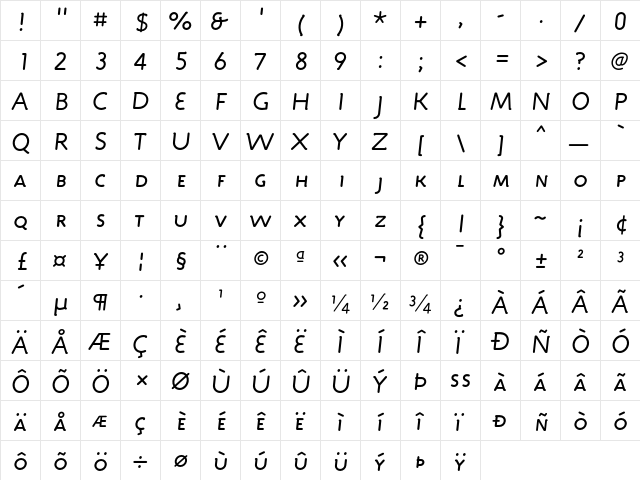
Engine CapsItalicLF
Design Context for Engine Typeface
Engine takes a measured approach to typography — its balanced proportions and neutral character make it a reliable workhorse for both digital and print work. The slanted form adds forward momentum and visual energy.
Pro Tip: Try Engine for annotation and caption copy alongside an upright companion — the contrast in angle creates a dynamic but ordered typographic system.